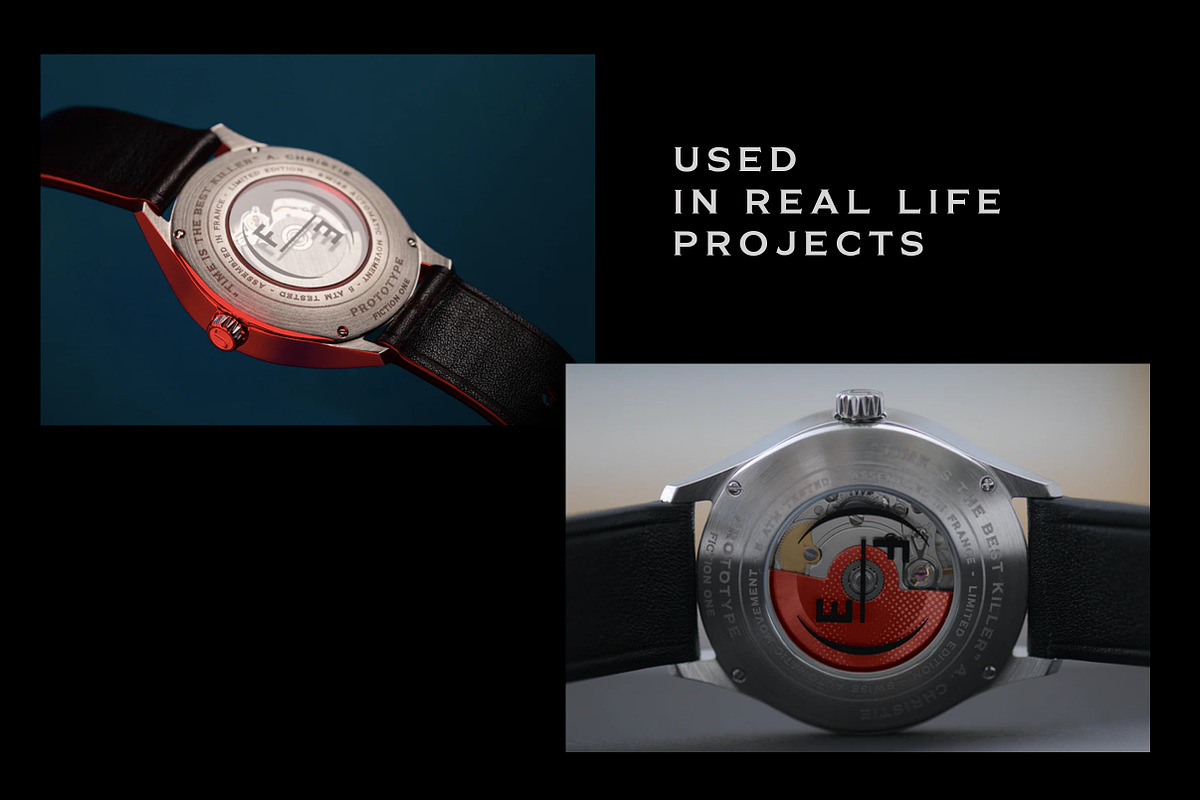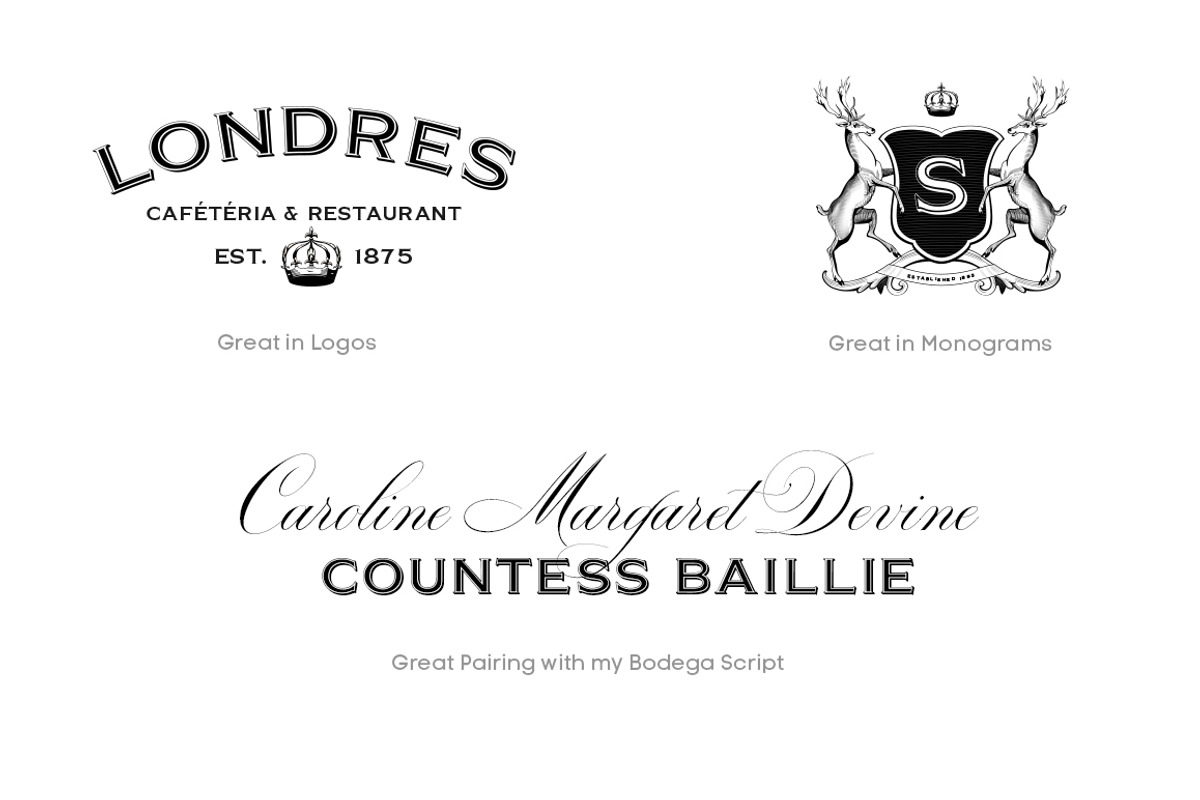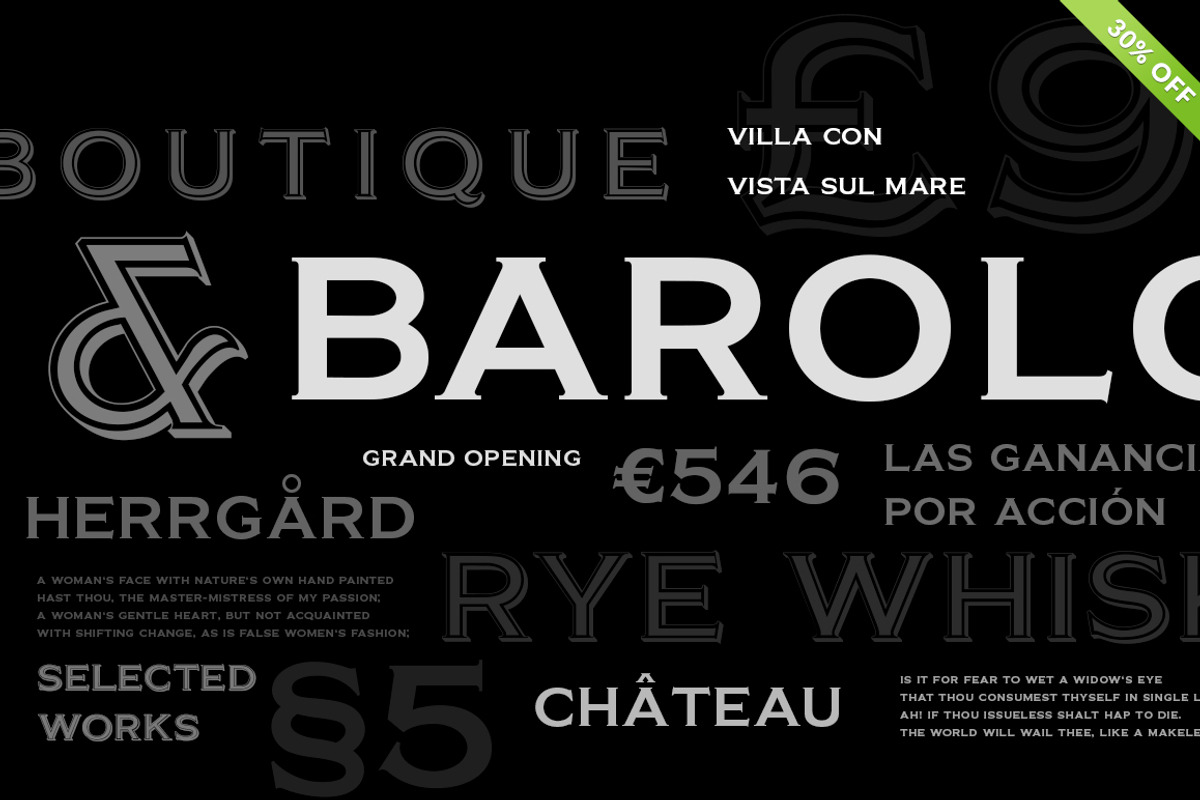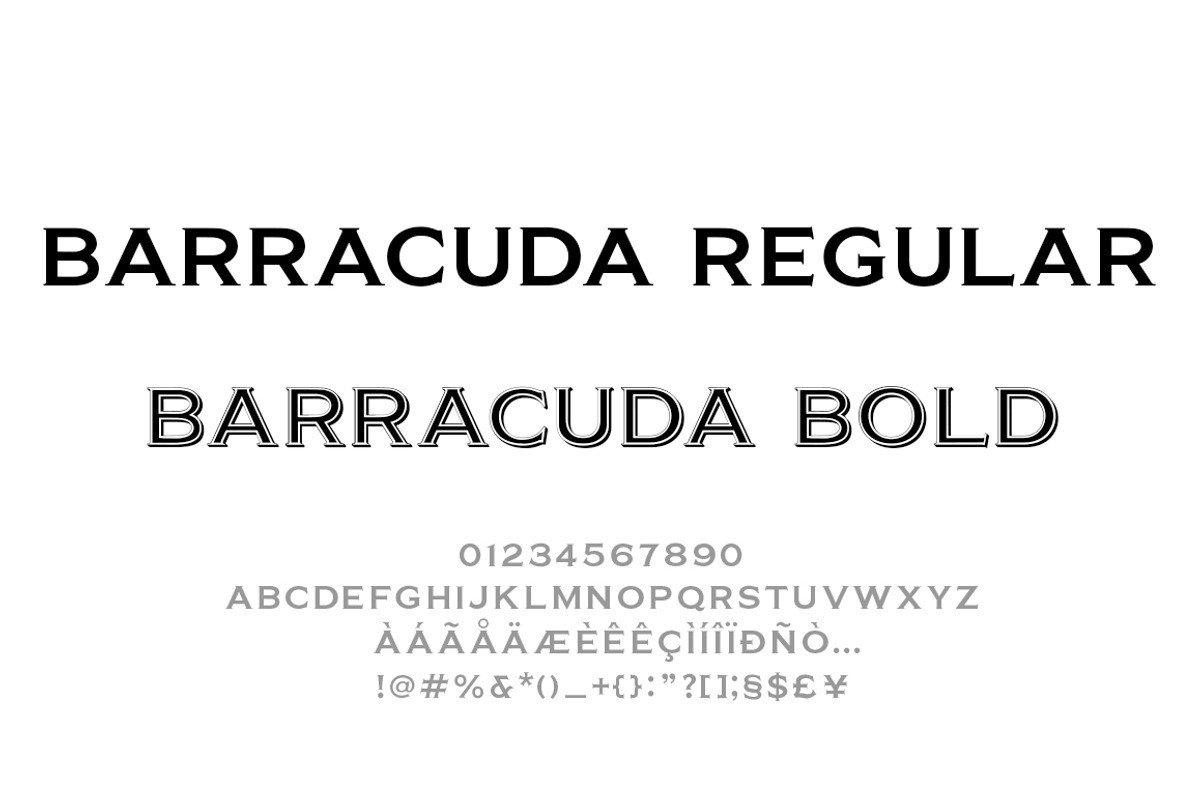
Barracuda Display - Logo Font
Barracuda Display - Logo Font by vatesdesign is a font selected for branding, posters, packaging, typography.
Why Barracuda Display - Logo Font is worth a look
Barracuda Display - Logo Font by vatesdesign fits naturally into Branding, posters, packaging, typography.